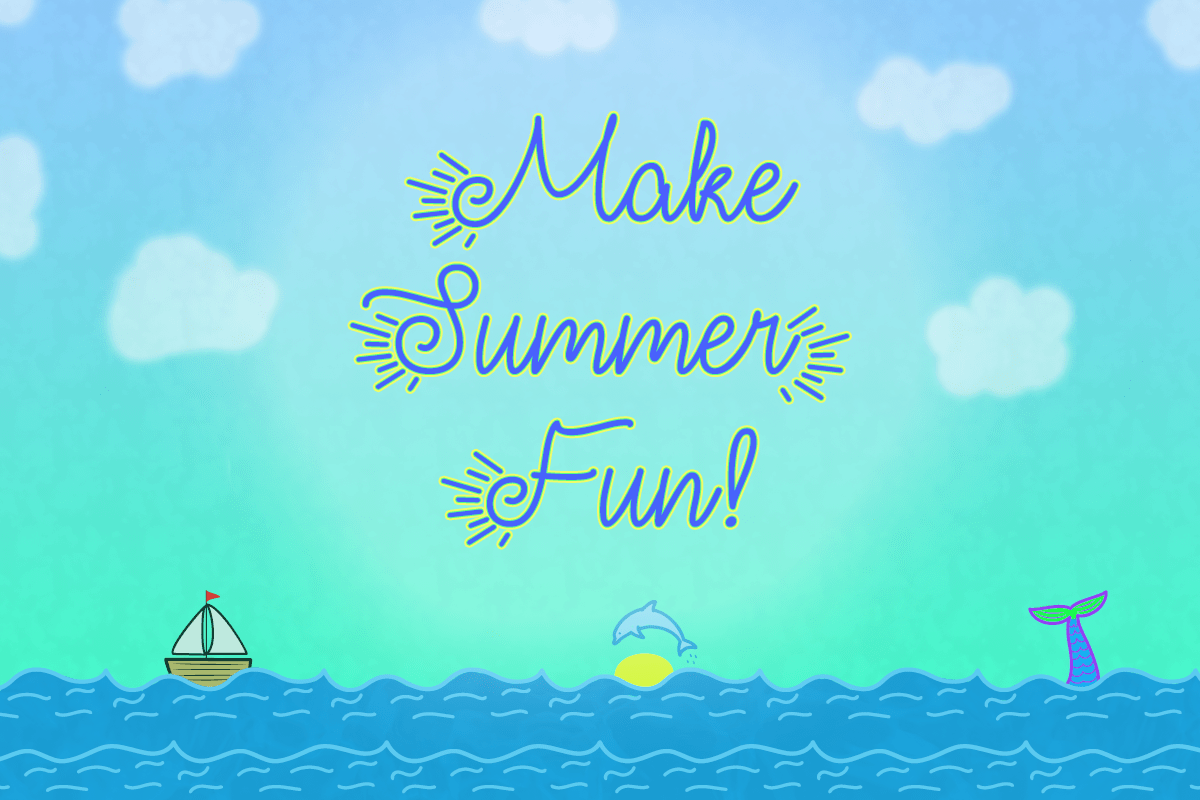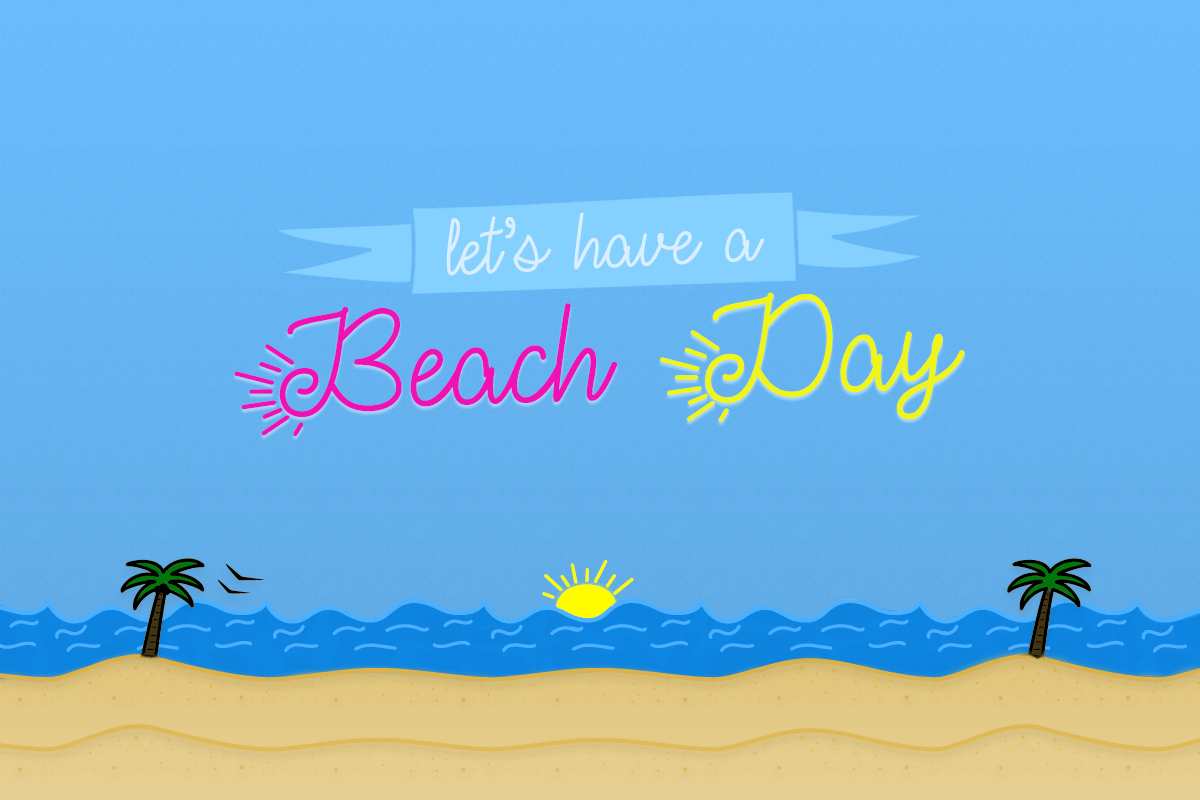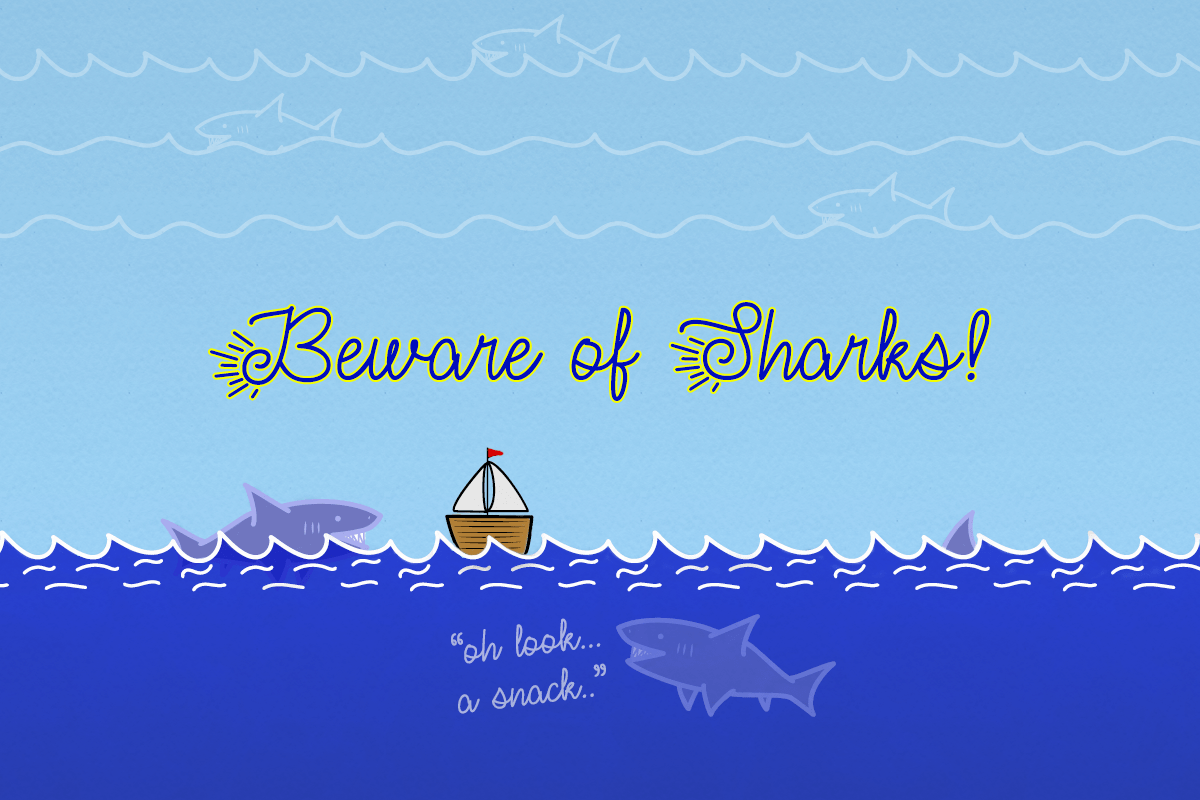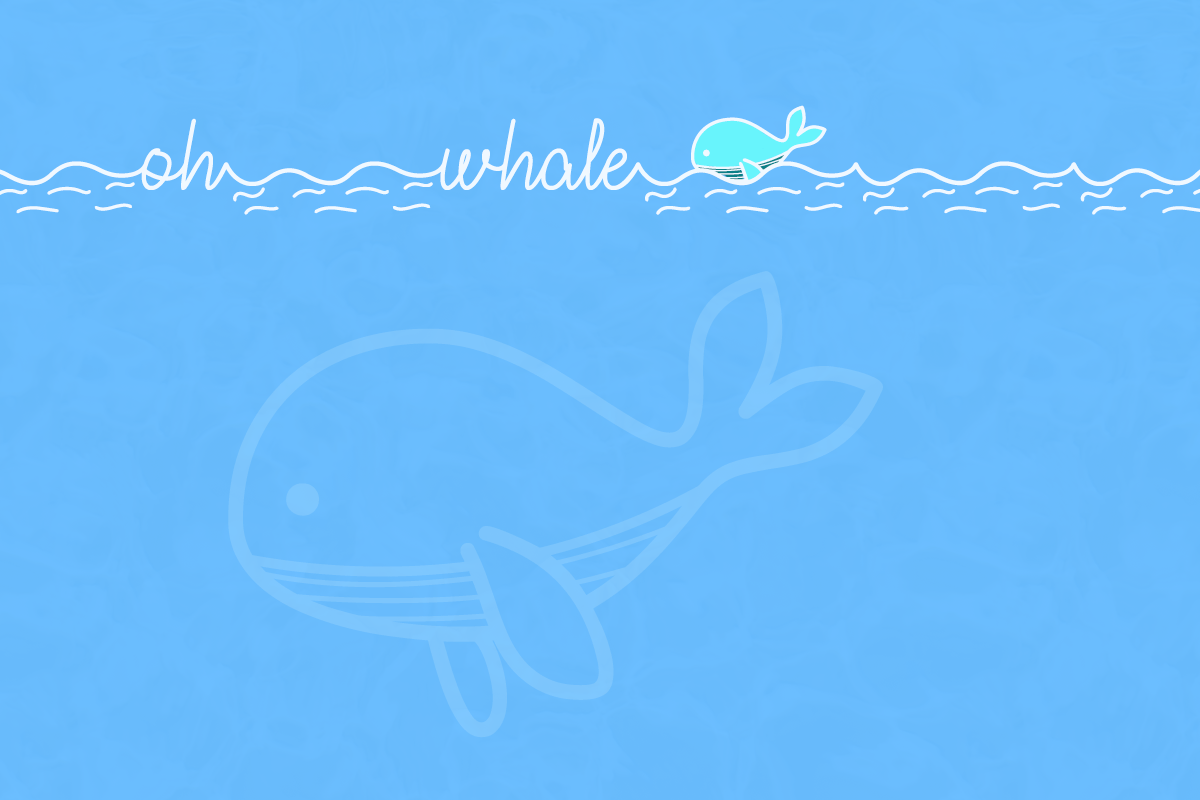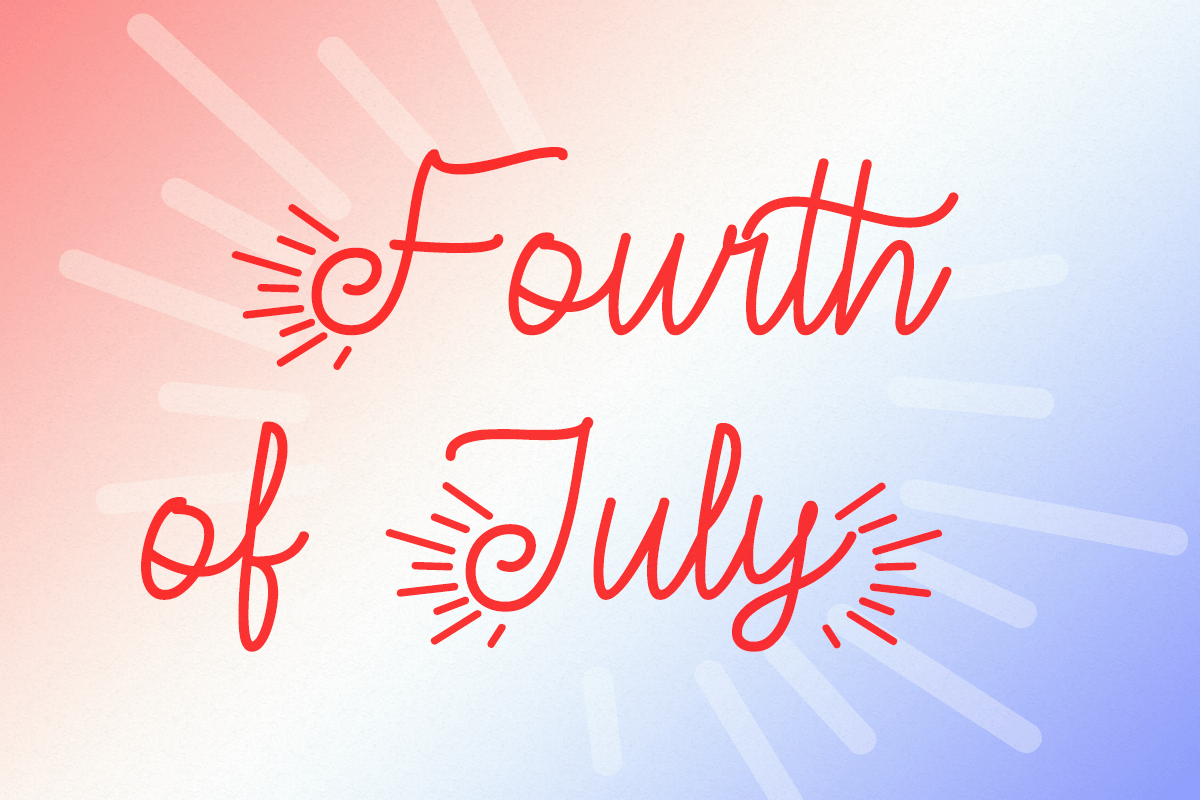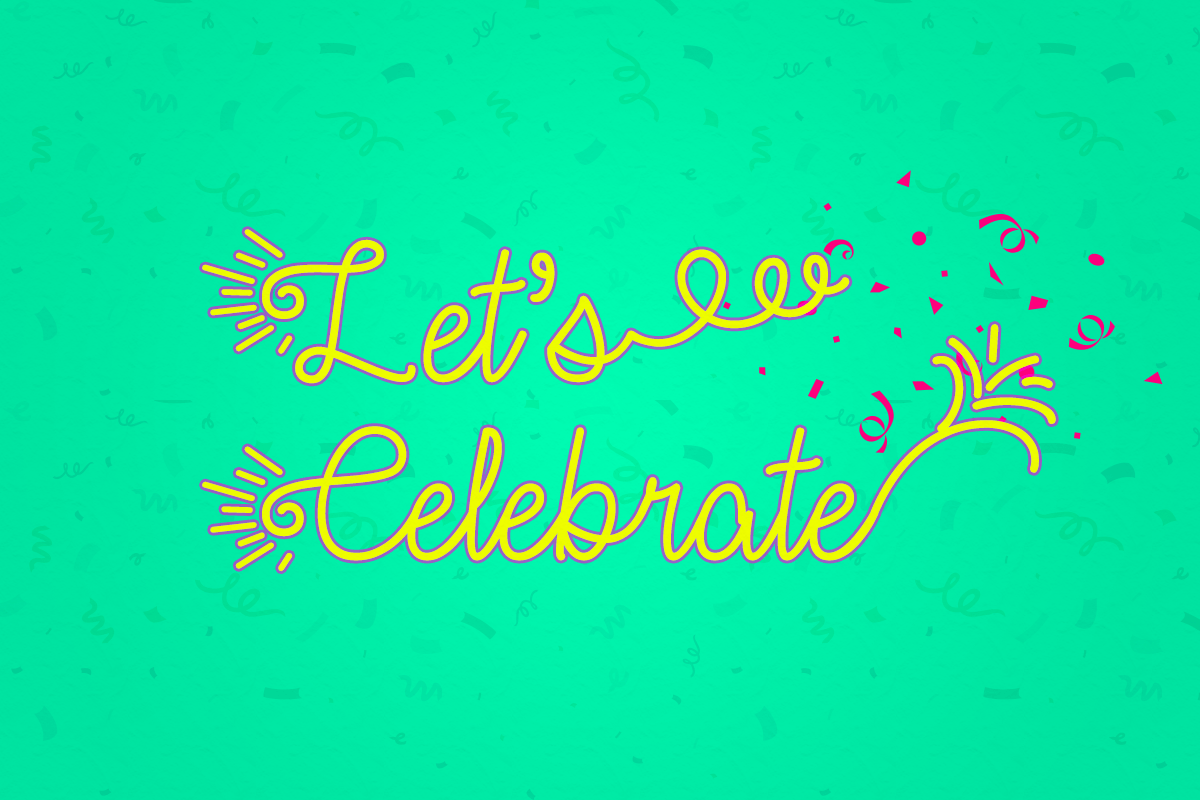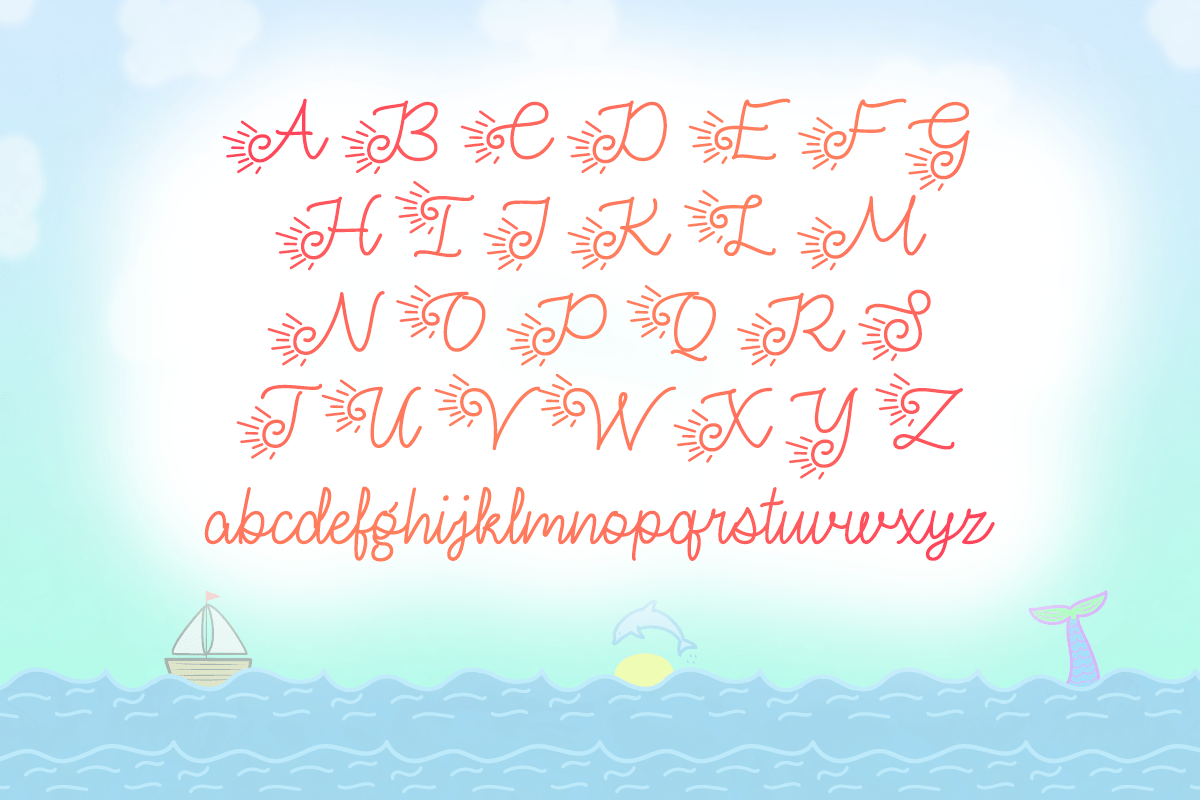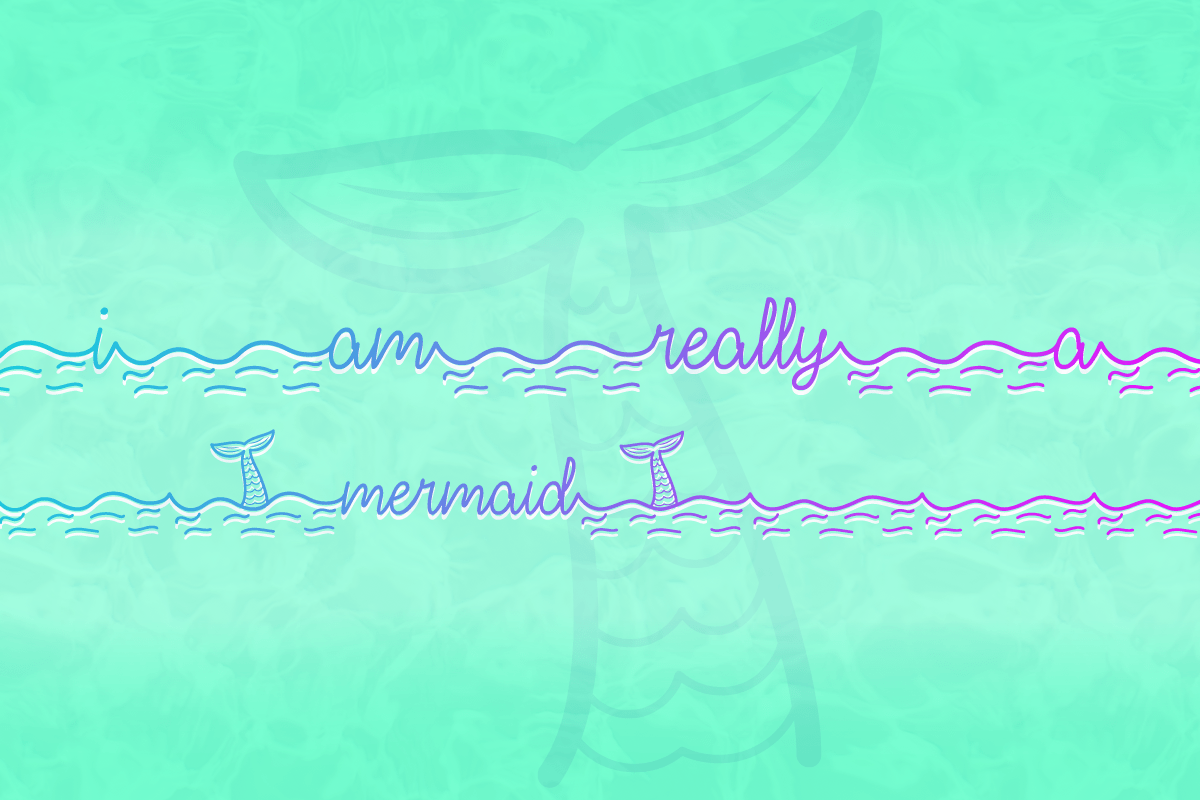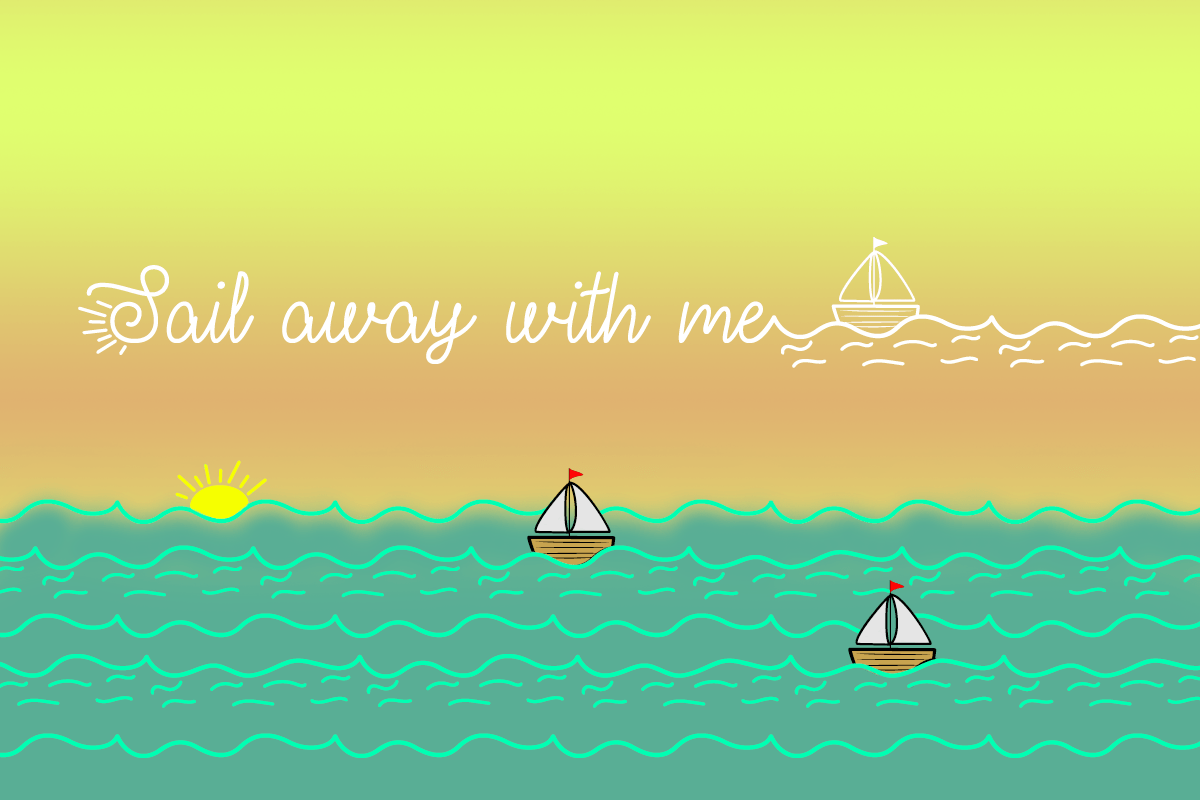
Make Summer Fun
Make Summer Fun is a beautiful cursive typeface. This magical handwritten font is a beautiful combination of timeless elegance and authentic calligraphy. It features an incredibly classic style, while still keeping a friendly feel. It features cute summer-themed doodles and is the perfect font for making original and outstanding designs.